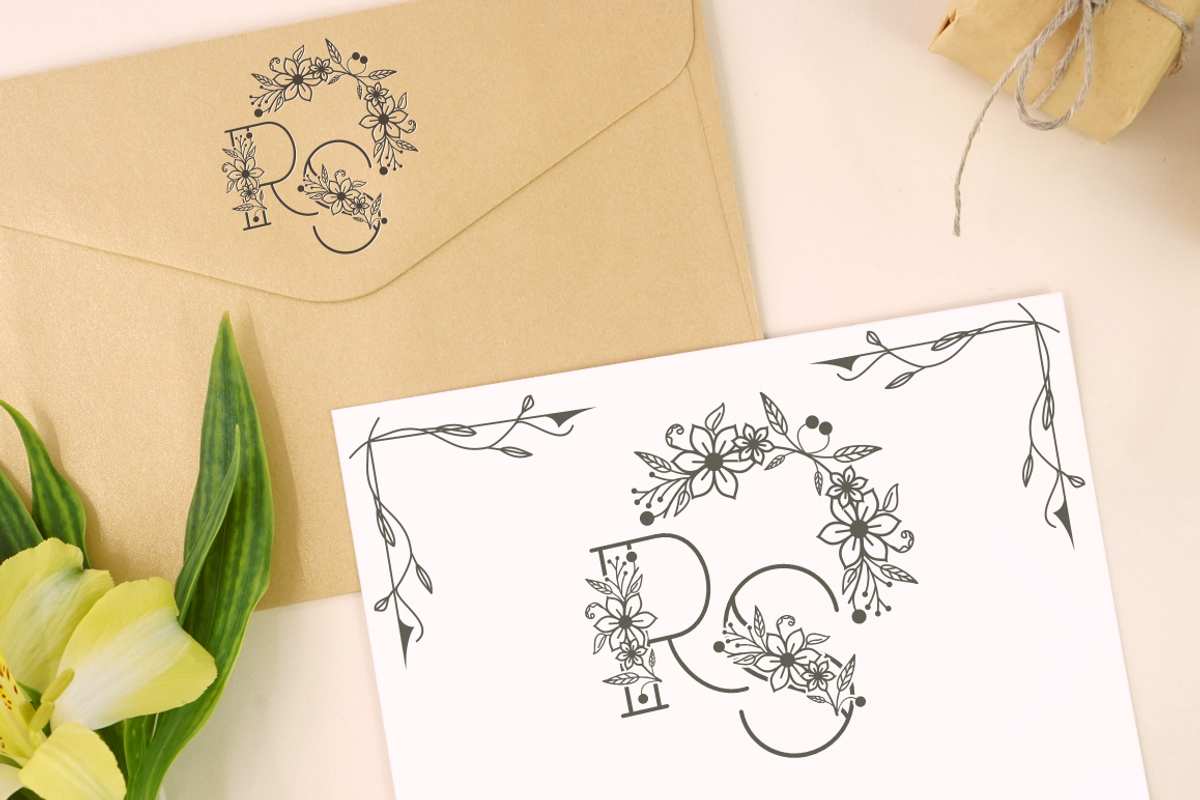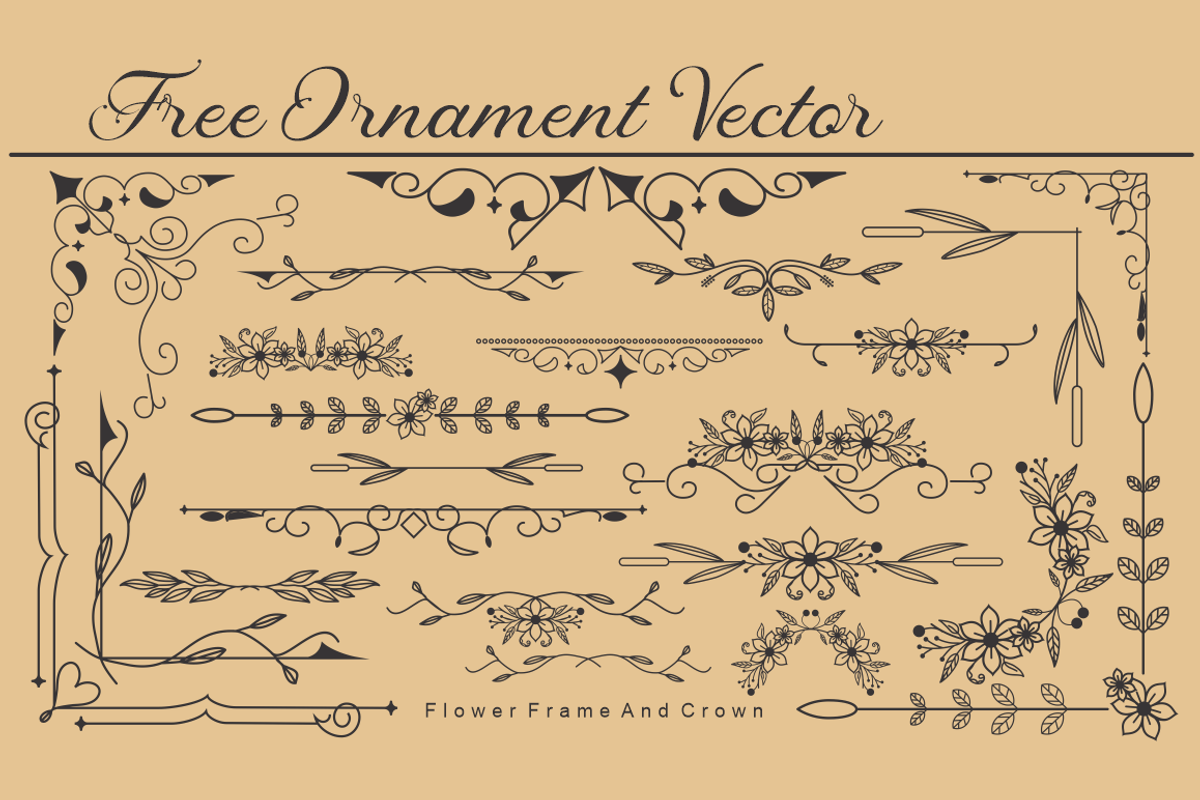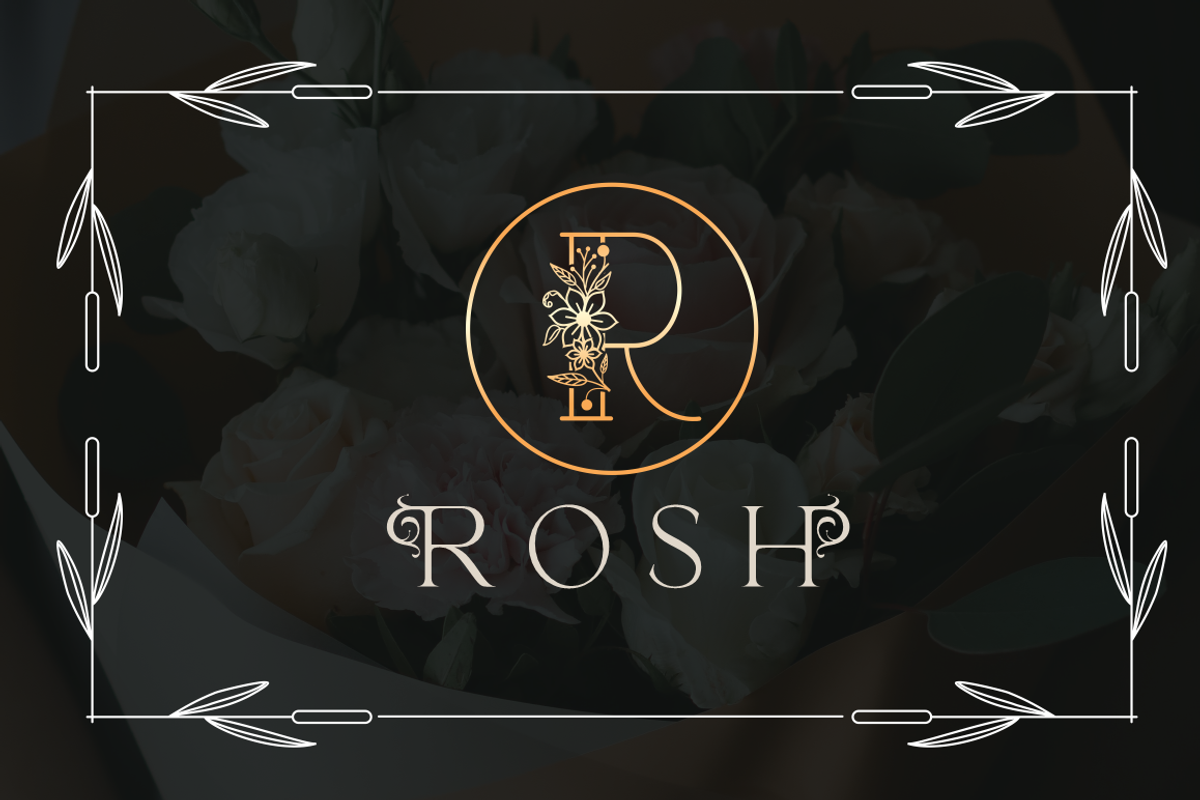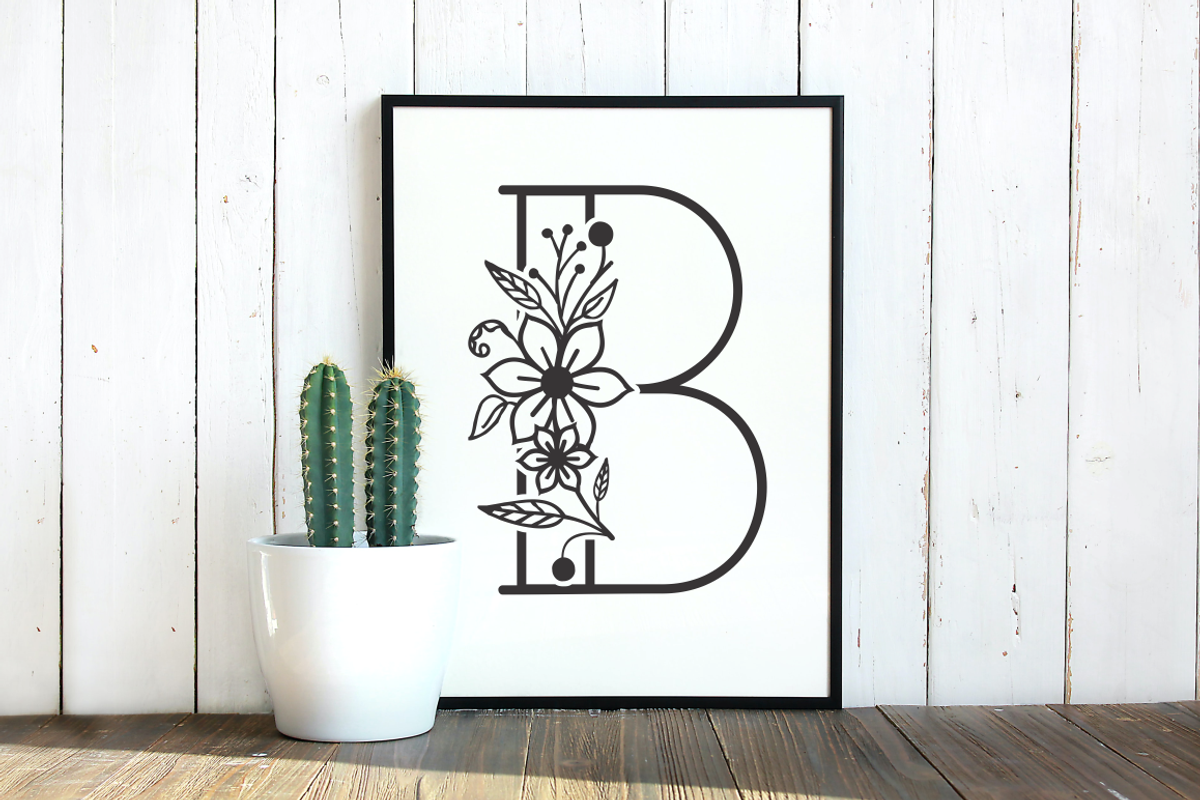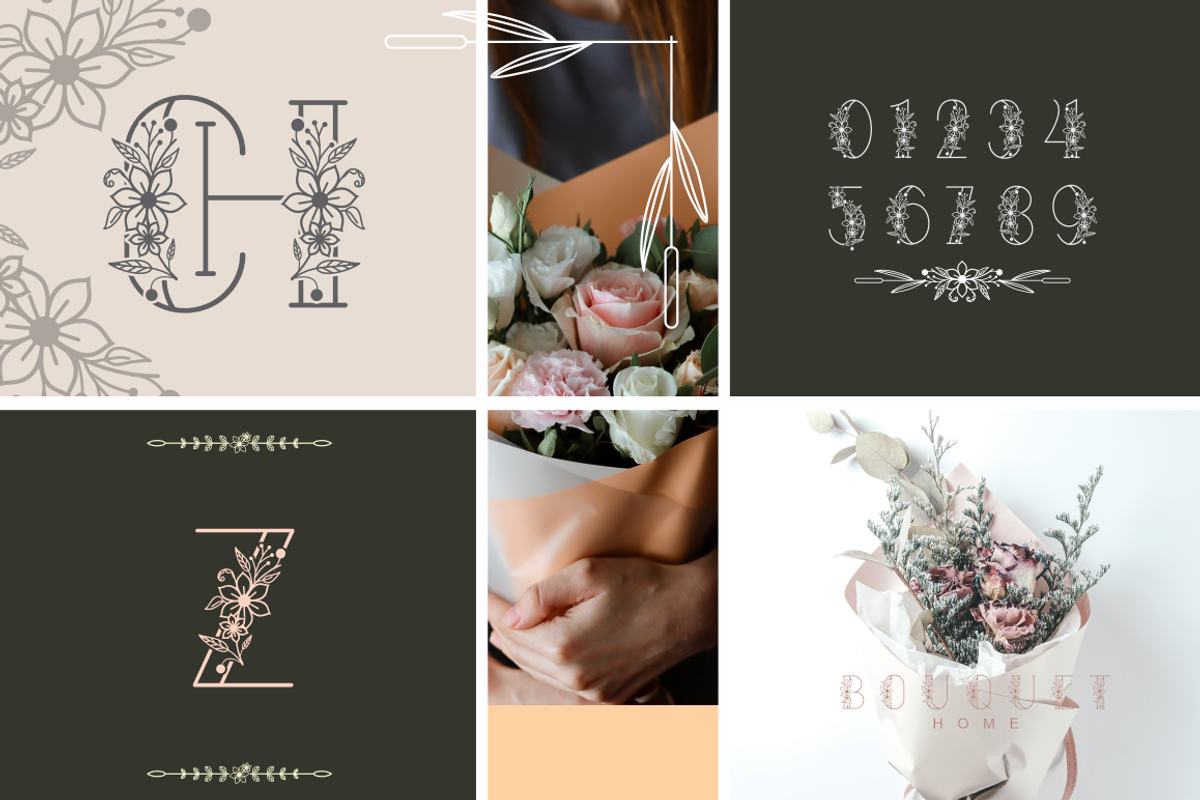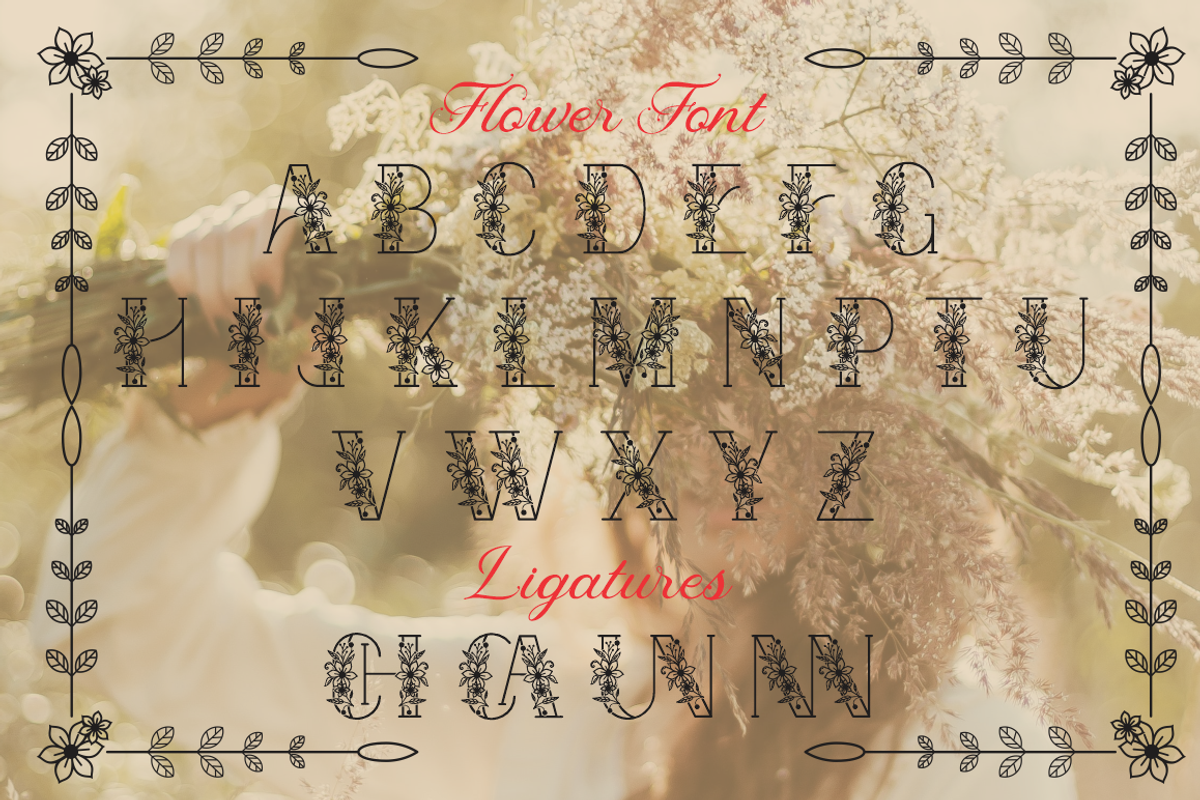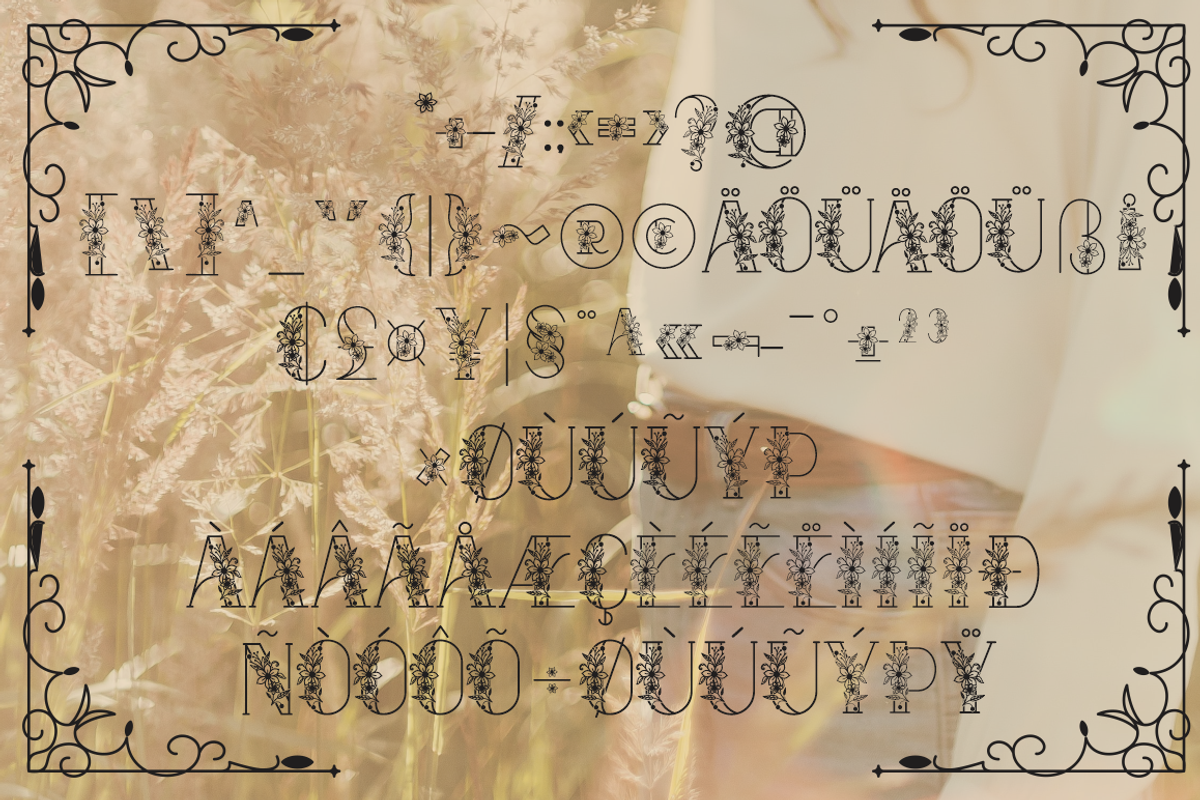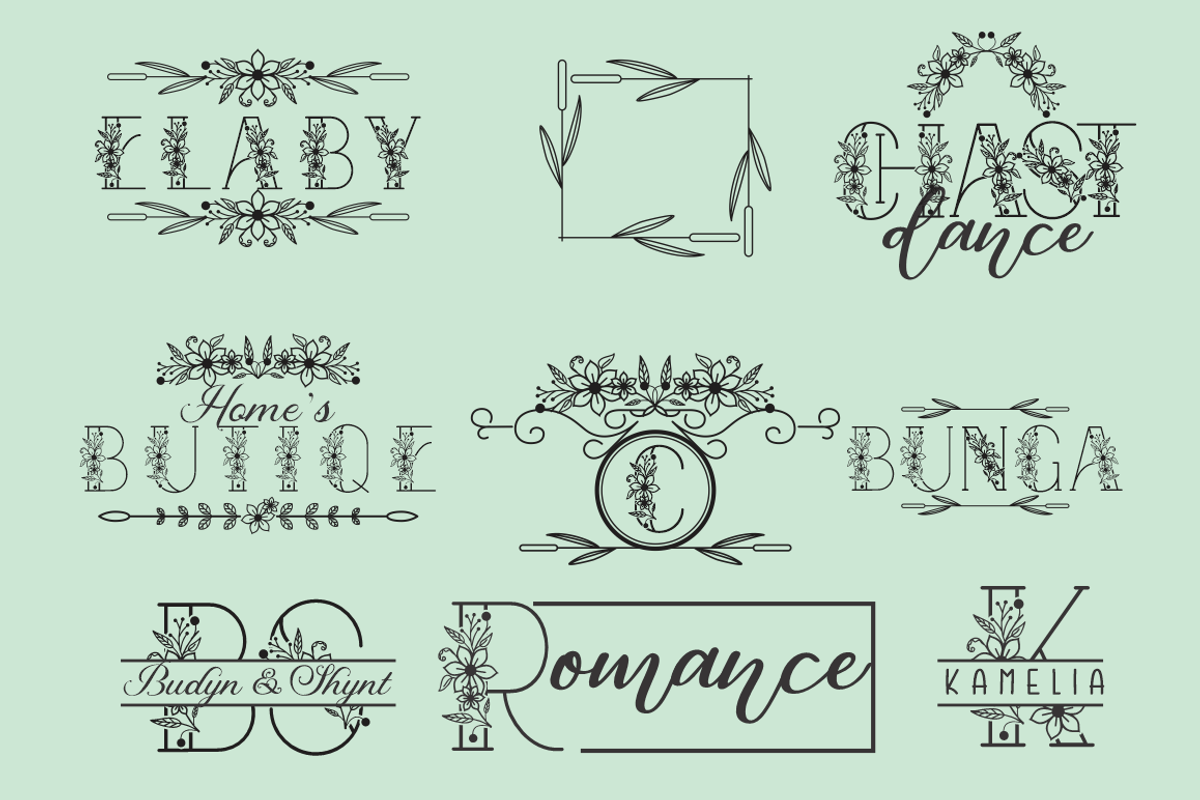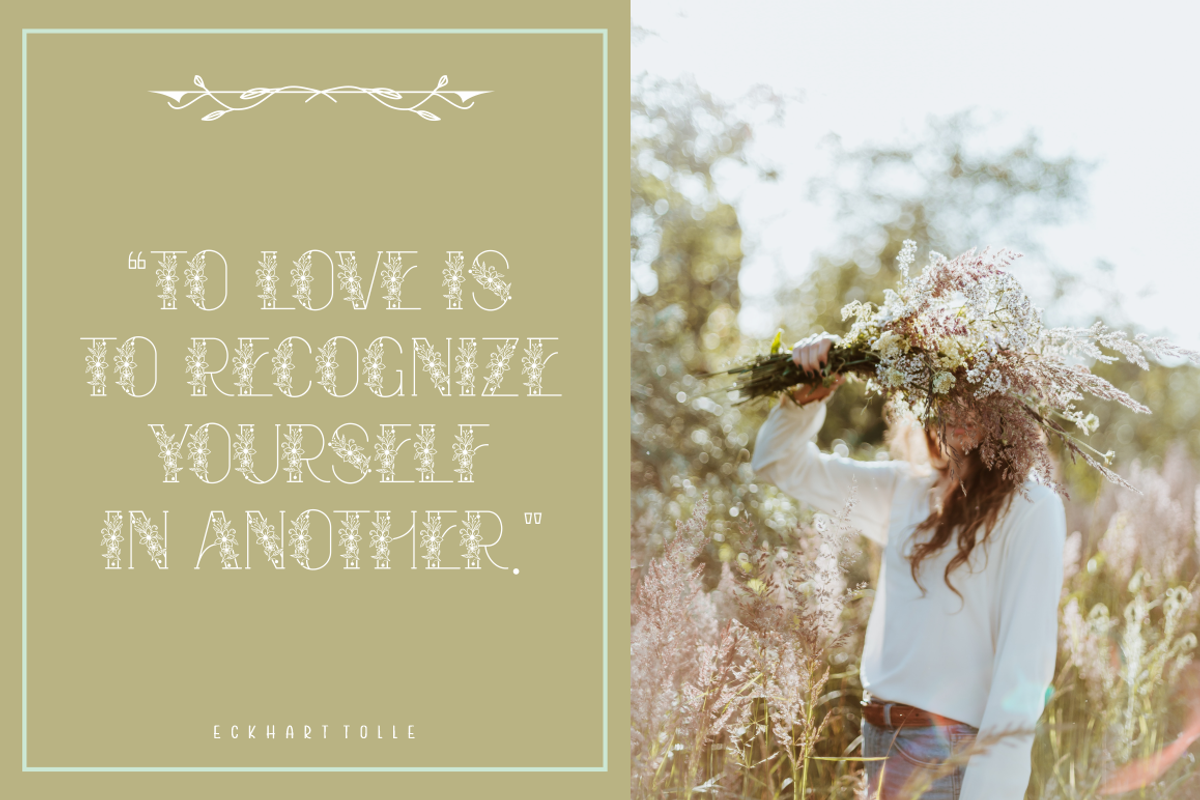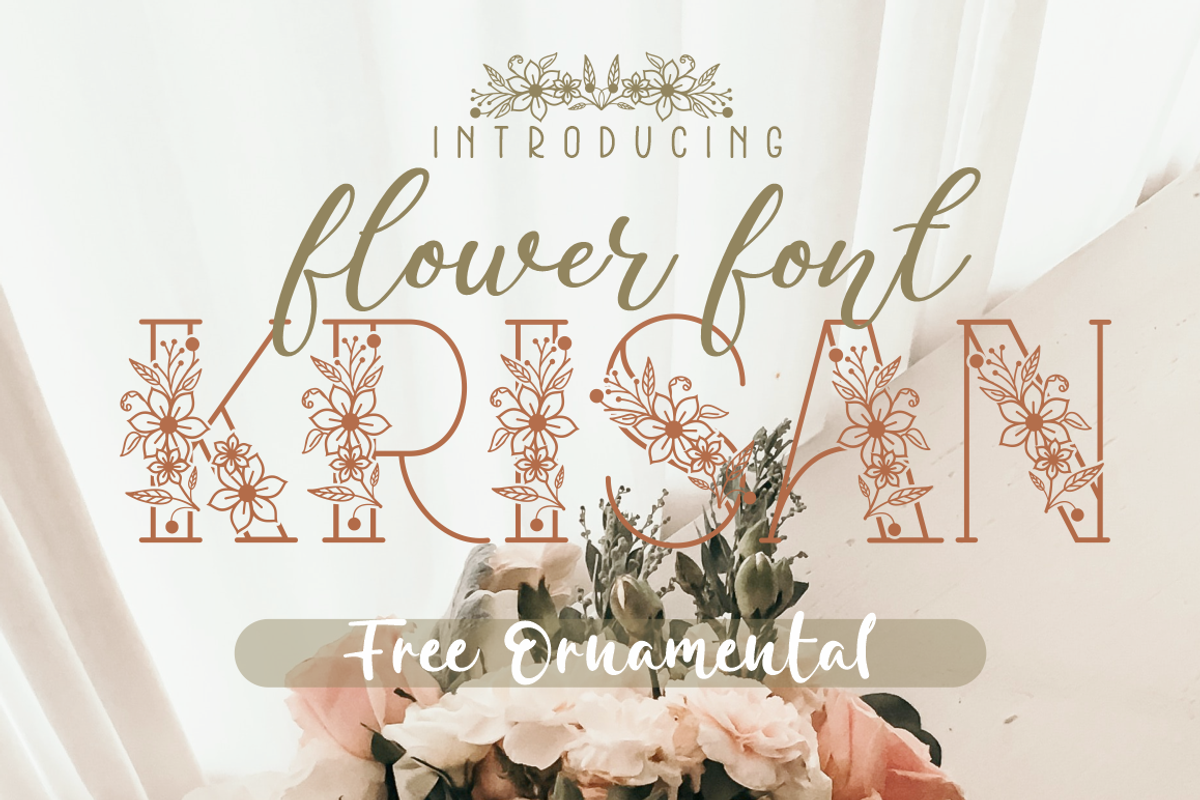
Krisan | Flower Font
Krisan is a font inspired by wedding decoration flowers. With a sleek shape adds to the impression of elegance and luxury. Krisan font also comes with a bonus frame and crown ornament for beautiful logos or initials.